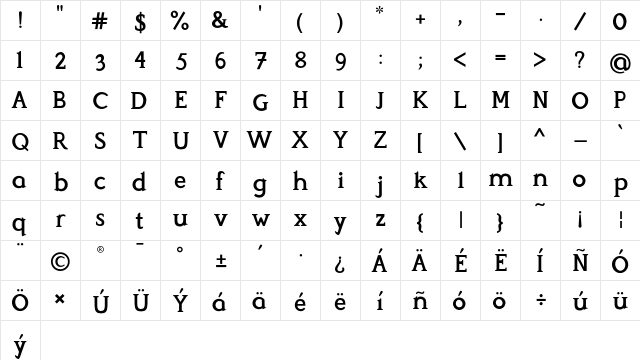
Perspicacious SemiBold
| Designer | Sharvanna Kenny |
Design Context for Perspicacious Typeface
Perspicacious offers clean, dependable letterforms without strong stylistic allegiance, making it a practical choice for designers who need flexibility. Its bold stroke weight gives it real presence on the page.